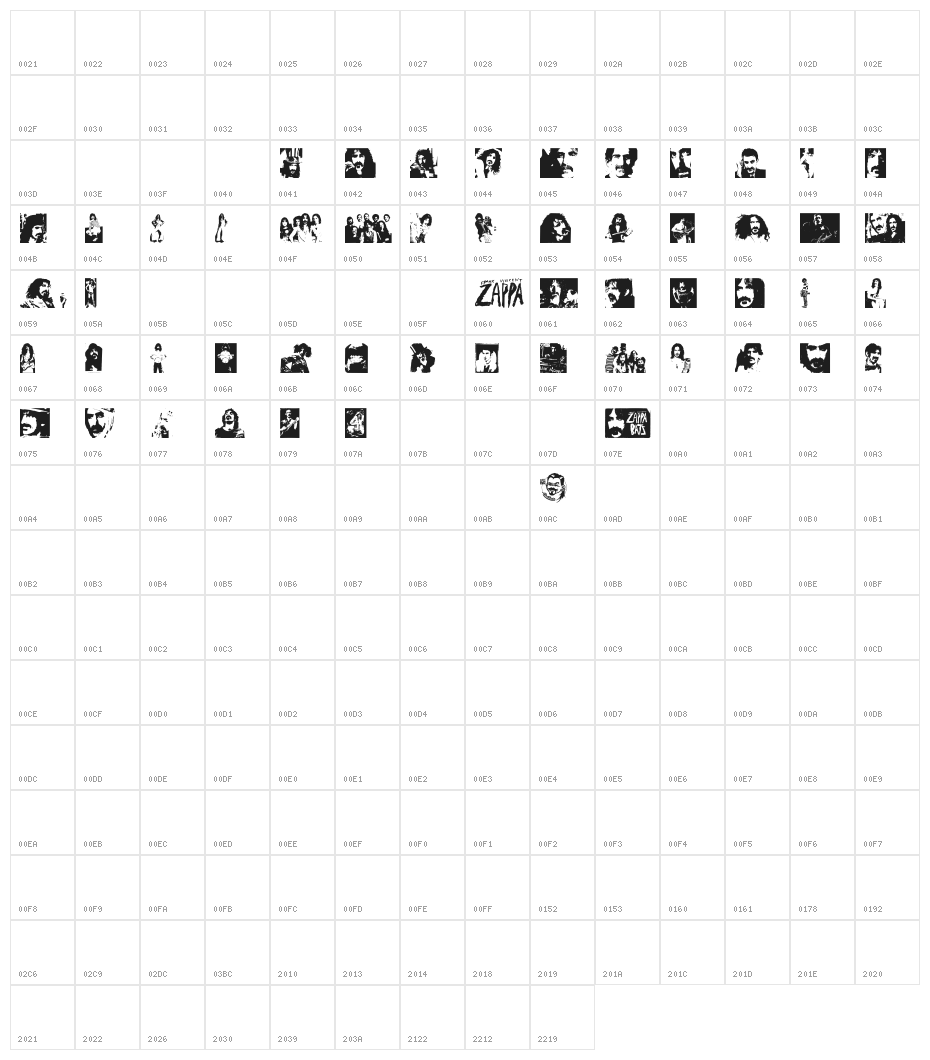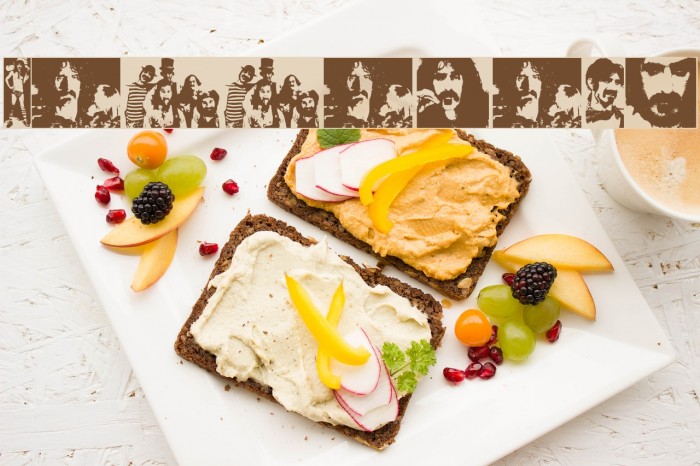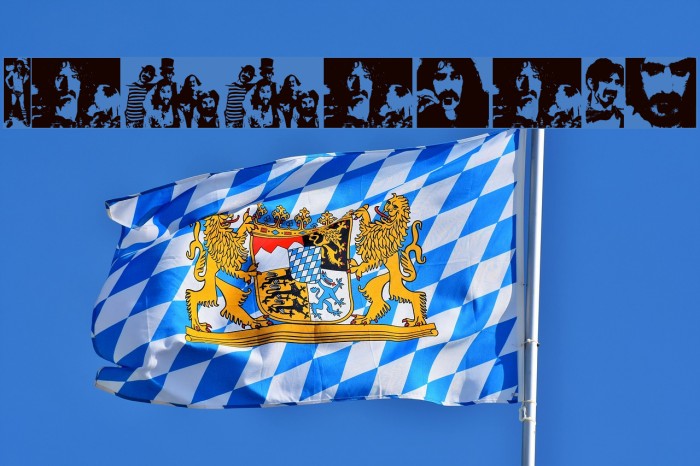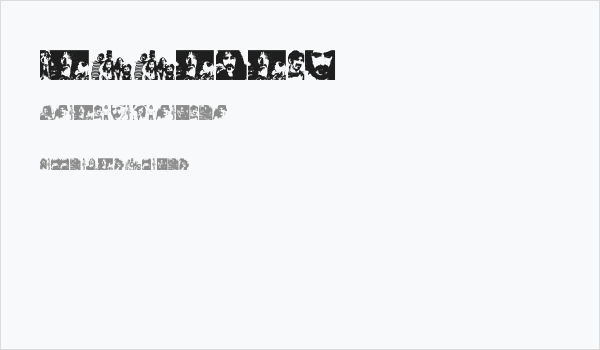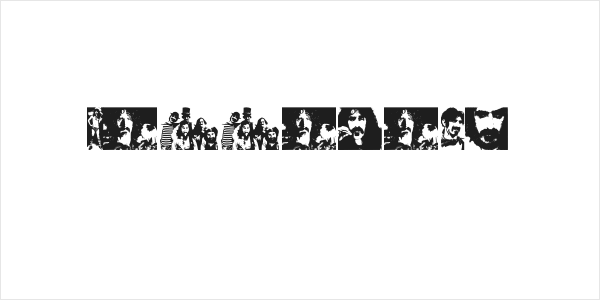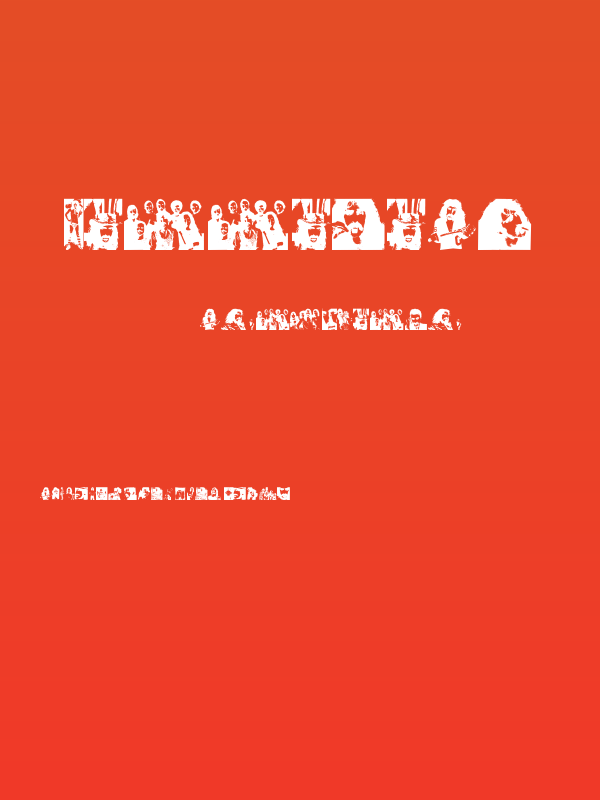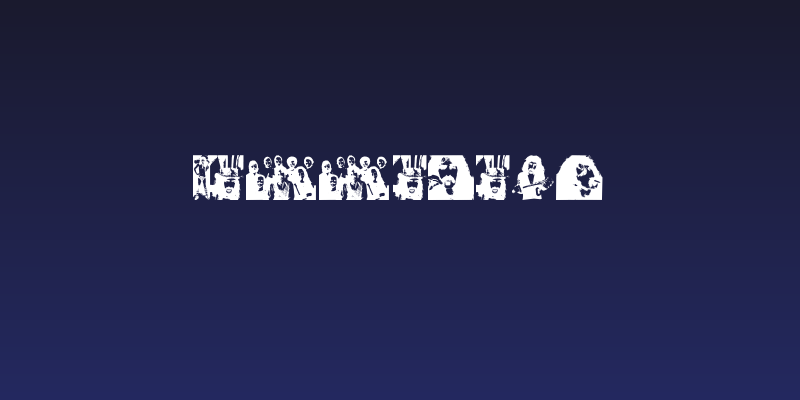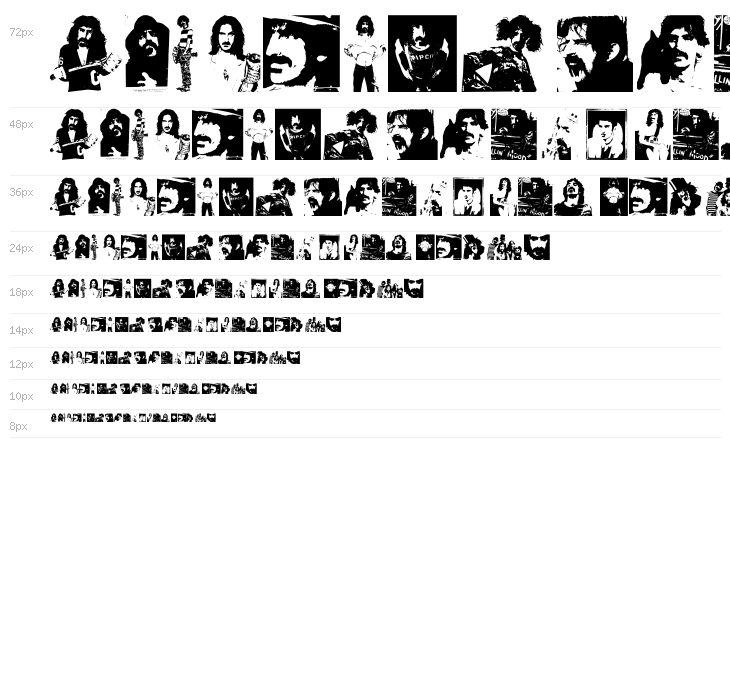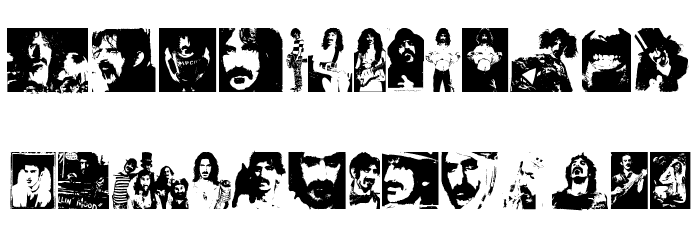
ZappaBats Font
ZappaBats Description
A highly decorative display font where each character is represented by a black-and-white silhouette or photo cutout of musicians and band scenes, creating a collage effect. The glyphs are square or rectangular, with high contrast and no traditional letterforms.
| Overall Style | Decorative, Collage, Artistic |
| Use Case | Logos, Headlines, Posters, Themed Graphics |
| Proposed Projects | Music posters, album covers, event flyers, themed party invitations, fan art, and editorial design related to music. |